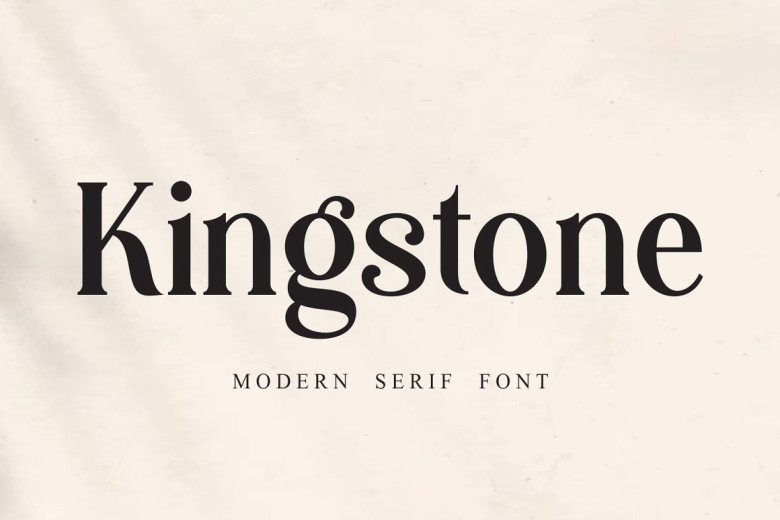
Introducing the majestic “Kingstone Serif Fonts,” a typeface that exudes power, elegance, and timeless appeal. With its commanding presence and exquisite details, this font is designed to make a bold statement in your designs. Let the “Kingstone Serif Fonts” reign over your projects and elevate them to new heights of sophistication.
Its sturdy serifs and balanced letterforms exude a sense of authority, making it ideal for prestigious branding, editorial designs, and luxury packaging. Each character is meticulously crafted to convey a sense of grandeur and refinement. Impress your audience and captivate their attention with the regal allure of “Kingstone Serif Fonts.”
Whether you’re designing logos, headlines, or promotional materials, this font will command attention and leave a lasting impression. Experience the power and grace of “Kingstone Serif Fonts” today. Elevate your designs to royalty and seize the attention of your audience. Don’t miss out on this opportunity to add a touch of grandeur to your work.